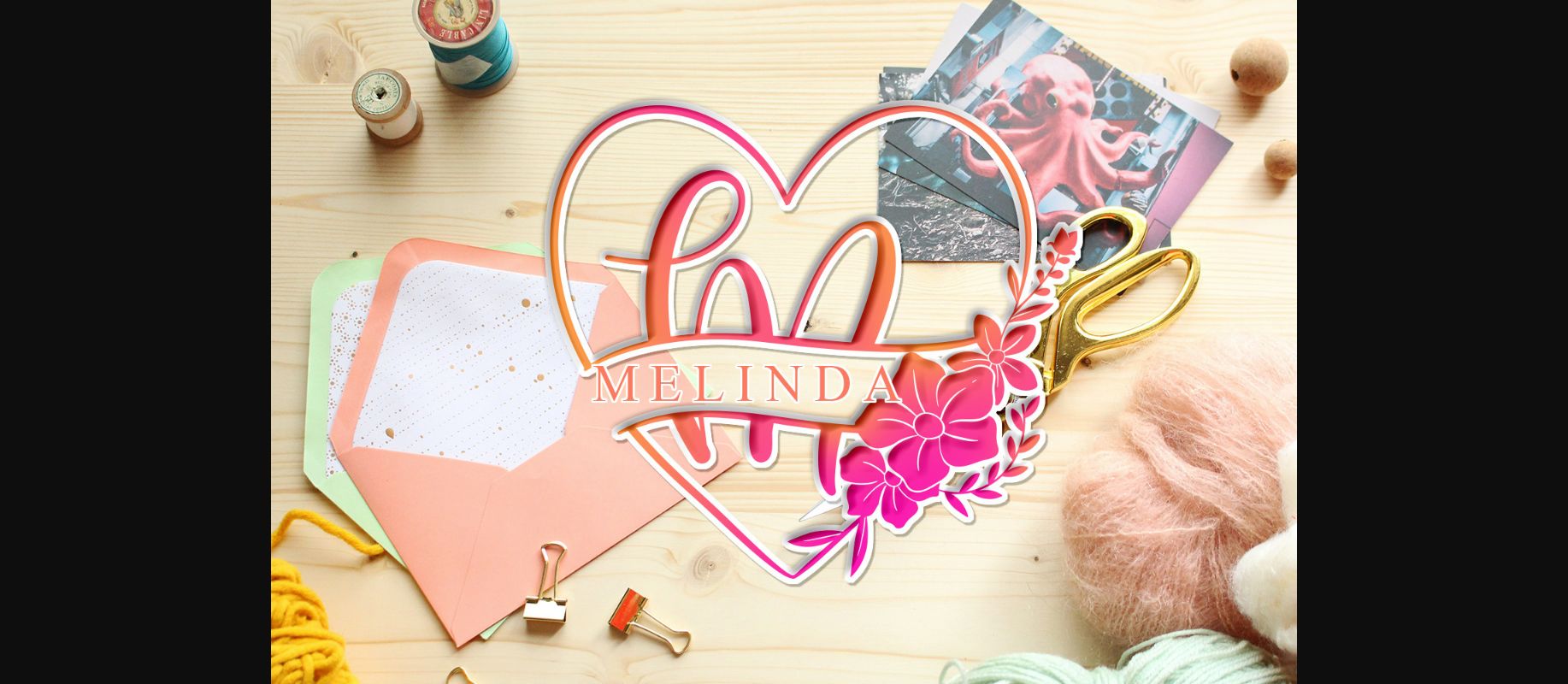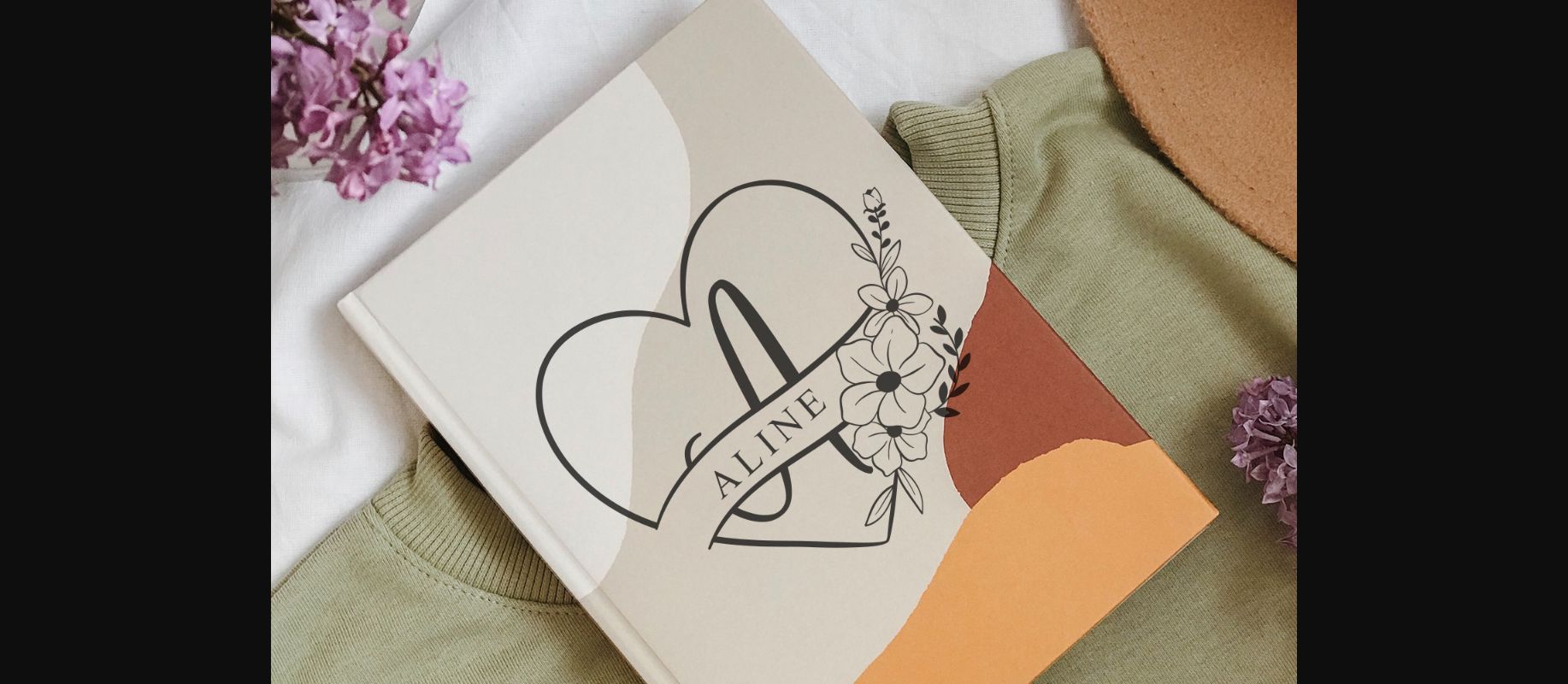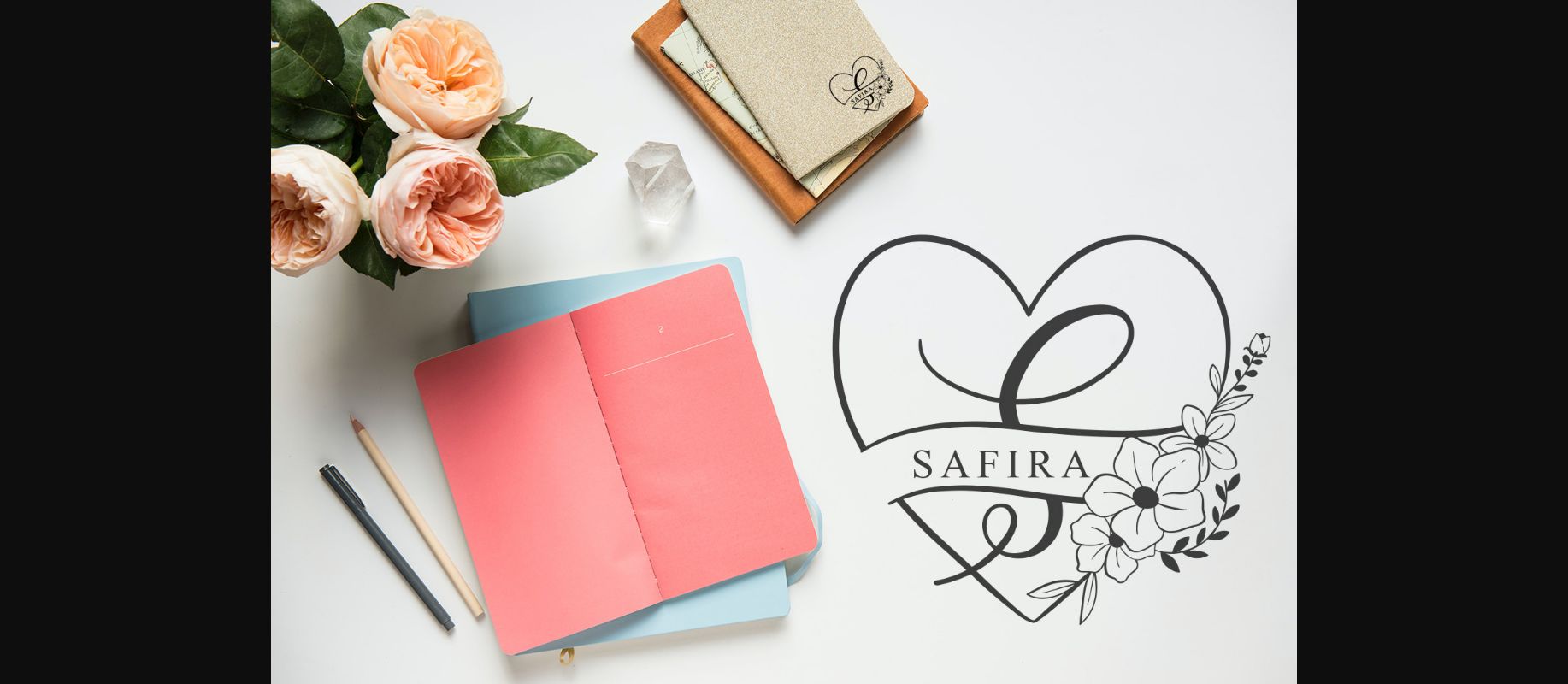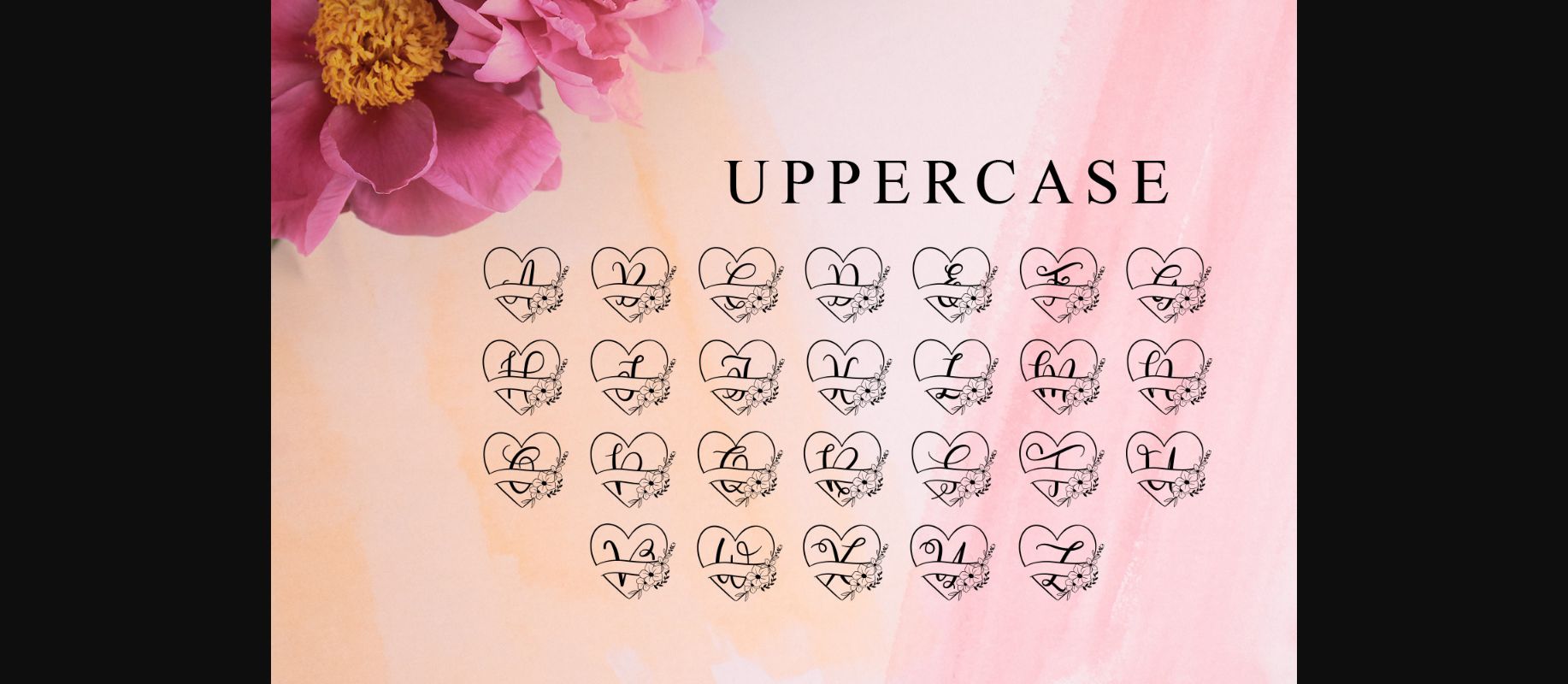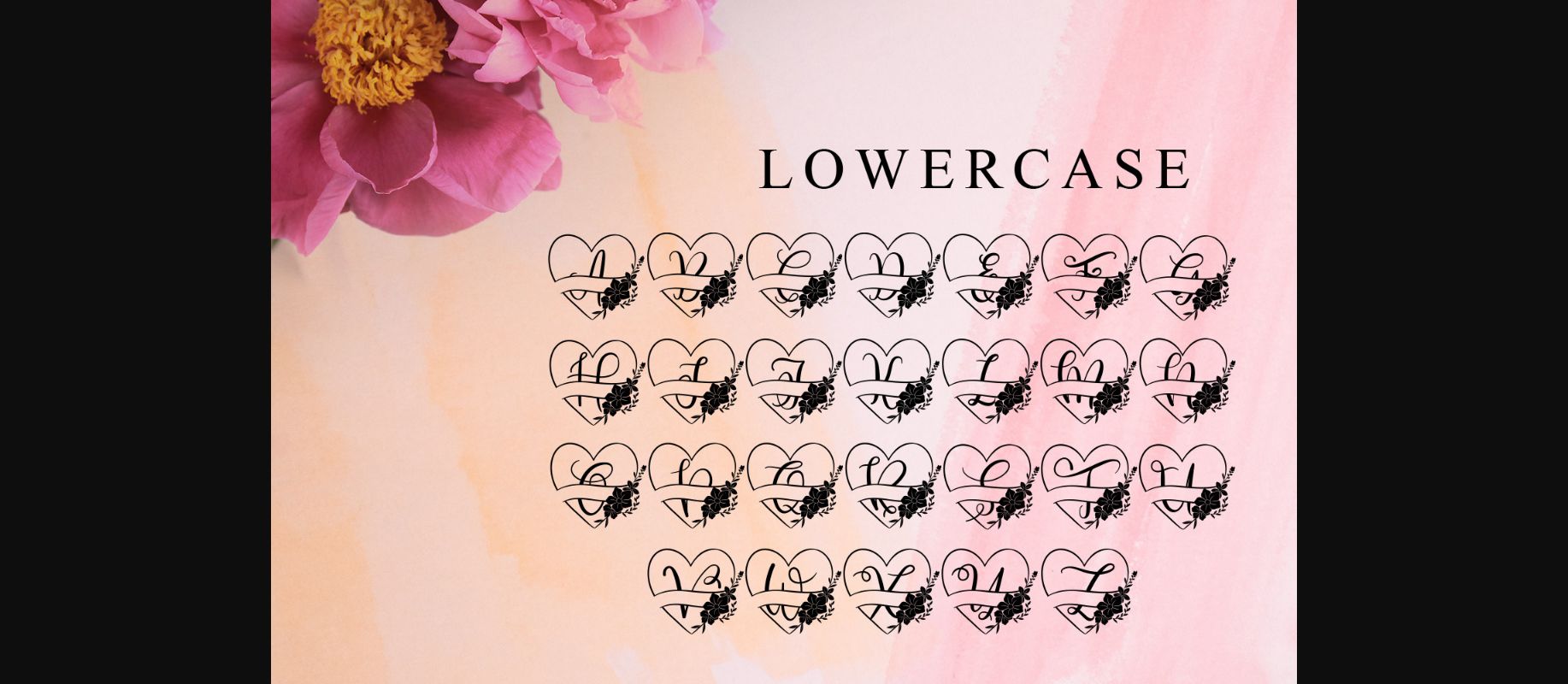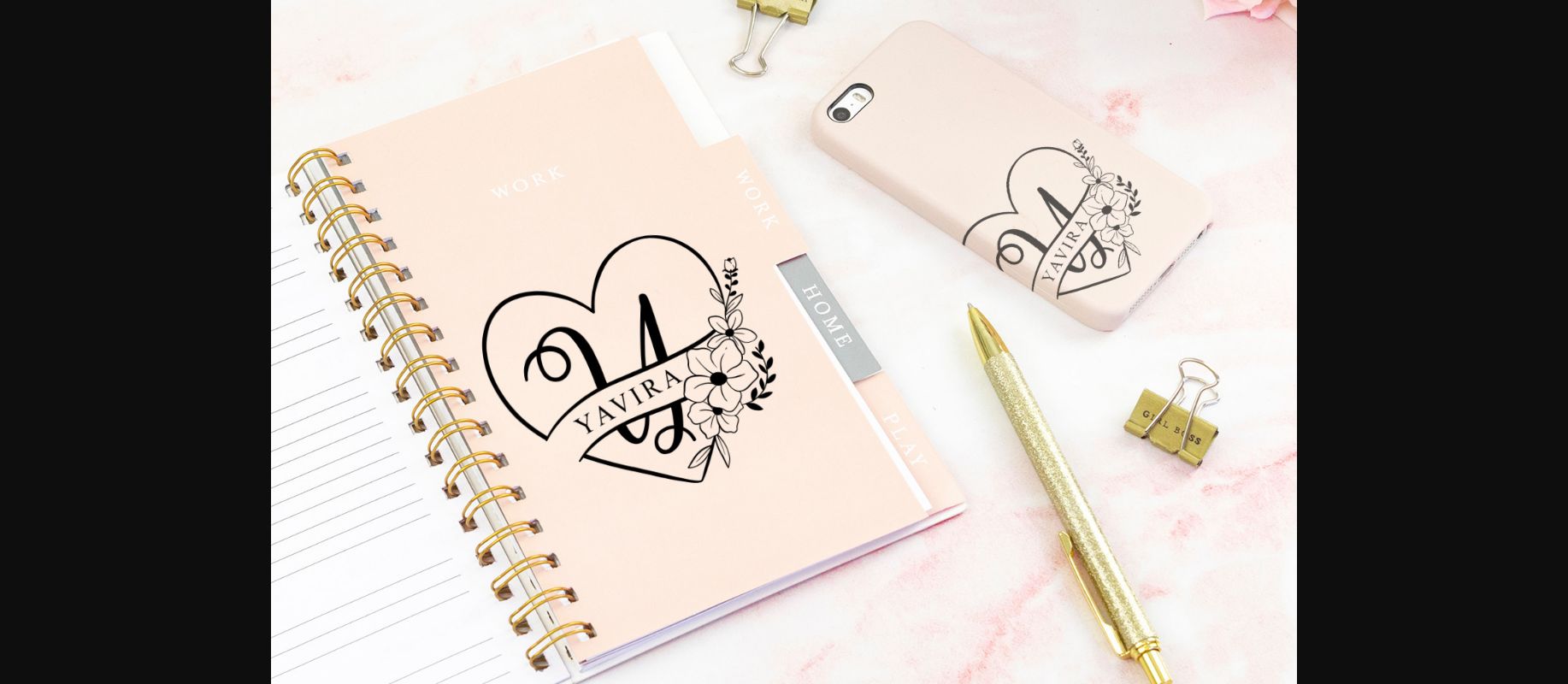
HomeDecorative FontsMelinda Monogram Font Font Decorative Fonts Melinda Monogram Font Font FacebookXPinterestWhatsApp 1 of 8 ... Melinda Monogram Font Font Poster 2... Melinda Monogram Font Font Poster 3... Melinda Monogram Font Font Poster 4... Melinda Monogram Font Font Poster 5... Melinda Monogram Font Font Poster 6... Melinda Monogram Font Font Poster 7... Melinda Monogram Font Font Poster 8... About Melinda Monogram Font Melinda Monogram is a dainty and unique decorative font. Add this romantic and lovely looking font to each of your love letters, wedding invitations or favorite design ideas, and you will be astounded by the outcome. DOWNLOAD NOW People also explored Beauty Dream Madelina Font Circusized Bethan White Font Shailettering Font Dynamic Font Yunnisa Font Belgium Signature Font Rabbit Font Bahagya Font 408 0 TagsMelinda Monogram Font Font Previous articleBloody Spooky FontNext articleLaba Monogram Font LEAVE A REPLY Cancel reply Comment: Please enter your comment! Name:* Please enter your name here Email:* You have entered an incorrect email address! Please enter your email address here Website: Save my name, email, and website in this browser for the next time I comment. Personal Use Free Girl Personal Use Free Read more about this font Indonesia Dermawan Personal Use Free Read more about this font Engine Personal Use Free Read more about this font Roland Personal Use Free Read more about this font BLOG 5 Fonts That Will Dominate Design Trends in 2026 5 Fonts for 2026 That Will Dominate Design Trends Typography plays a critical role in visual communication, and as we look ahead to 2026, it’s... To increase your work productivity, choose the most readable fonts. Top 10 Handwritten Fonts That Elevate Your Designs Free vs Paid Fonts: Why Investing in Premium Fonts Is Worth It